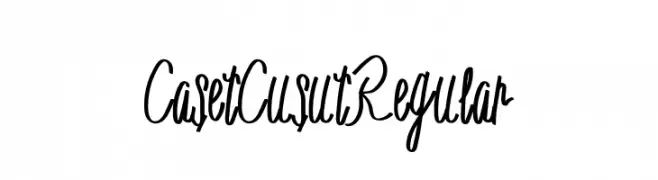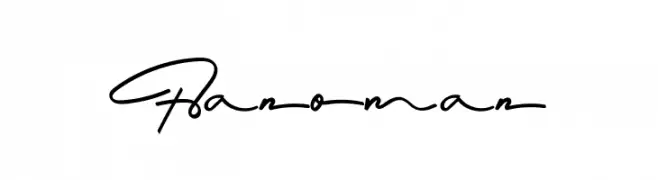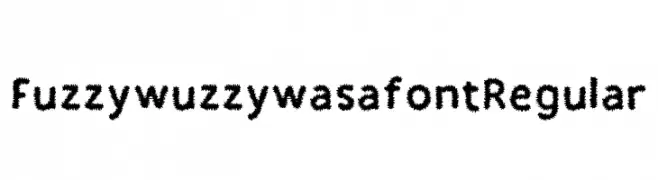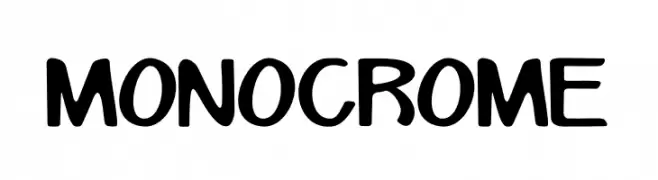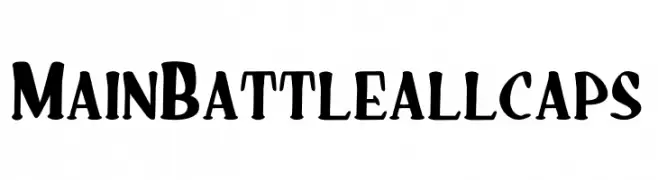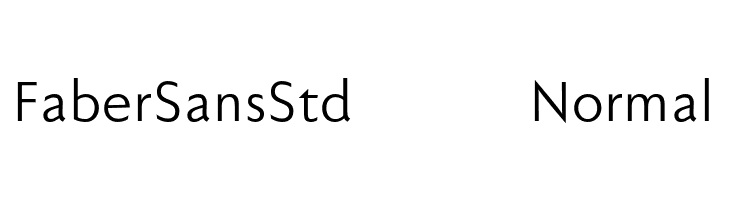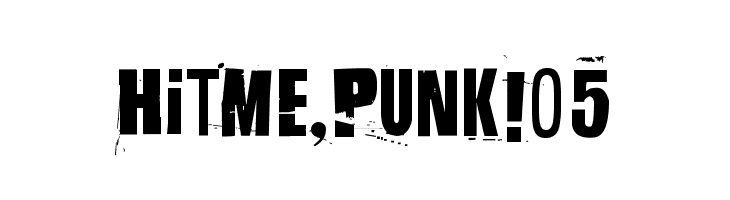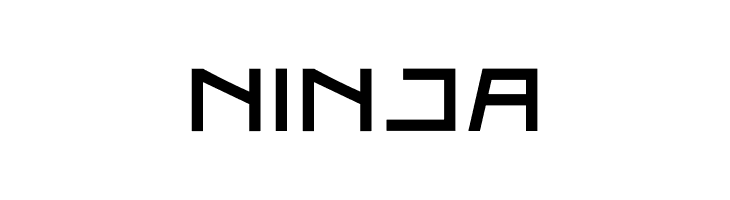
A dynamic, flowing script font with elegant, slightly whimsical characters.
A bold, hand-drawn font with a playful and dynamic style.
A clean, modern sans-serif font with geometric shapes and uniform strokes.
An elegant, cursive script font with fluid, interconnected strokes and a handwritten style.
A playful, hand-drawn font with a whimsical and casual style.
A modern sans-serif font with clean, geometric lines and uniform stroke width.
A playful, fuzzy-textured font with bold, dynamic characters.
A bold, rounded font with a playful and informal style.
A bold, decorative font with dynamic, slightly curved uppercase letters.
A playful and artistic font with bold, rounded shapes and whimsical loops.